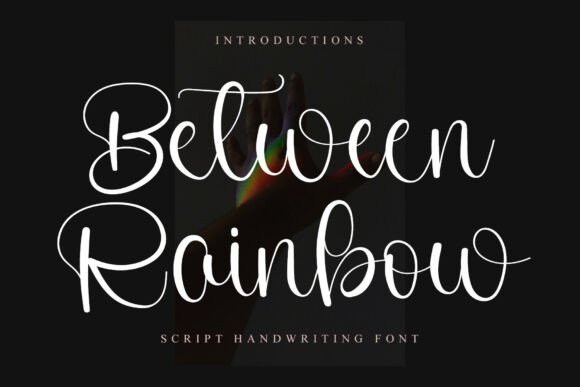
The Quest for the Perfect Font: Discovering Between Rainbow
Ah, the eternal struggle of finding the perfect font for our design projects. I still remember the time I was working on a branding project for a client, and I was stuck with a bland, generic font that just wouldn’t cut it. The client wanted something stylish, yet professional; elegant, yet approachable. I scoured the internet, tried countless fonts, but nothing seemed to fit the bill. That’s when I stumbled upon Between Rainbow, a stylish handwritten font that has since become a staple in my design toolkit.
A First Impression: What Makes Between Rainbow Special
Between Rainbow is a beautifully crafted font that exudes a sense of contemporary elegance. Inspired by timeless classic calligraphy, this font strikes the perfect balance between style and legibility. Its varied and balanced design makes it perfect for a wide range of projects, from branding and advertising to crafting and DIY tutorials.
An Honest Review: The Good, the Bad, and the Quirks
So, what makes Between Rainbow stand out from the crowd? Here are a few things I love about this font:
- ✨ Stunning handwritten style with a contemporary twist
- ✅ PUA encoded for easy access to glyphs and ligatures
- ⚡️ Highly legible, even at smaller font sizes
- 🌈 Beautifully balanced and varied design
Of course, no font is perfect, and Between Rainbow has a few minor quirks:
- 🤔 Some users may find the font a tad too ornate for very casual projects
- ⚠️ Limited availability of certain characters and symbols
The Story Behind Between Rainbow
Between Rainbow was designed with the goal of creating a beautiful, versatile font that would inspire creativity and elegance. The design process involved a deep dive into classic calligraphy, combined with a modern twist to create a truly unique font. The result is a stunning, handwritten font that is perfect for a wide range of design projects.
| Is Between Rainbow suitable for body text? | While Between Rainbow is highly legible, it’s best suited for headlines, titles, and short paragraphs. For longer body text, you may want to consider a more traditional font. |